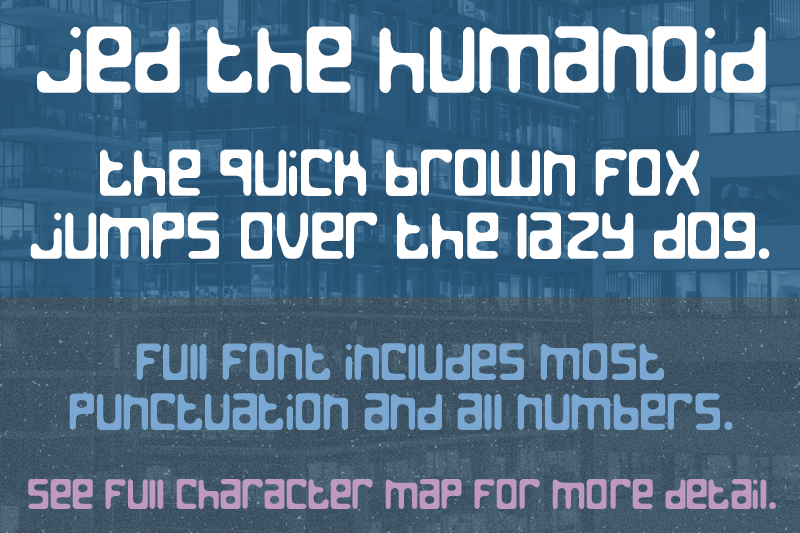
Font name: | Jed the Humanoid |
Author: | Quick Brown Fox Fonts |
Note by Quick Brown Fox Fonts | |
Jed the Humanoid, originally released in September of 2001, was inspired by the song of the same name by the band Grandaddy. It was my first (and at the time of this writing, my only) attempt at making a futuristic font. The caps and lowercase are the same. More punctuation glyphs have been added since its original release. This is a DEMO version of the font. It includes only uppercase and lowercase letters. You can use the demo version for personal use. The full version of the font, which can be purchased very very cheaply at QuickBrownFoxFonts.com, also contains numbers and some punctuation and symbols. You can view the full character map at QuickBrownFoxFonts.com. Purchase of the full version entitles you to a full license of the font, with which you can use the font commercially in any project. |